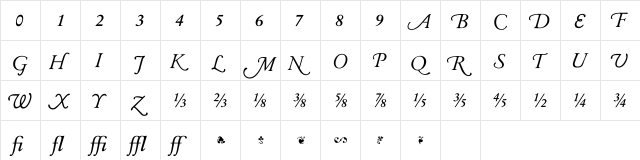
Garamand Classic Book Extras Bold Italic Font Preview
Design Context for Garamand Classic Book Extras Typeface
Garamand Classic Book Extras has the warm character of retro typography — evoking diners, record sleeves, and the golden age of print advertising. The dynamic lean of this cut emphasises speed and emphasis in any layout. Its bold stroke weight gives it real presence on the page.
Font Pairing: Combine Garamand Classic Book Extras with a simple slab or neutral sans — period-accurate companions reinforce the vintage feel without competing for attention.
Pro Tip: Use Garamand Classic Book Extras for headlines and pull quotes rather than body copy — its personality is best appreciated in short, focused bursts.